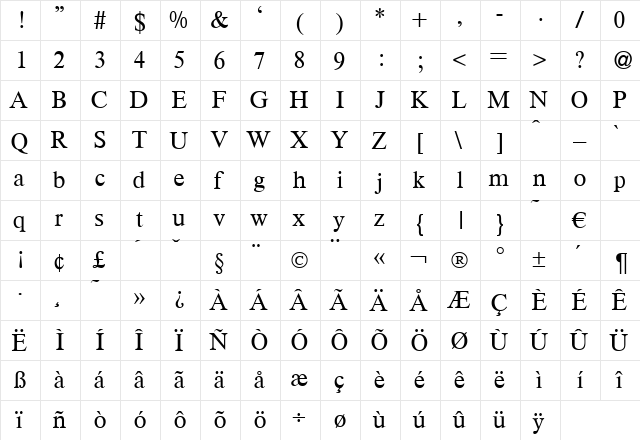
Timmons Normal
Design Context for Timmons Typeface
Timmons takes a measured approach to typography — its balanced proportions and neutral character make it a reliable workhorse for both digital and print work.